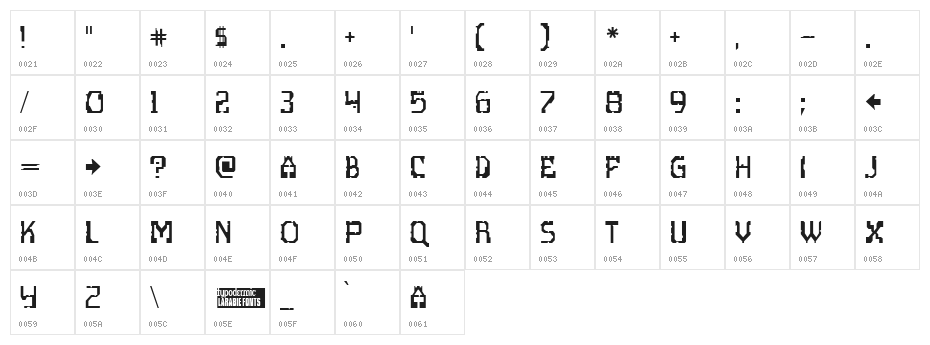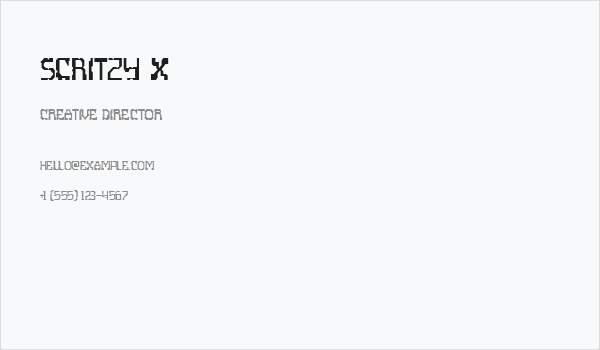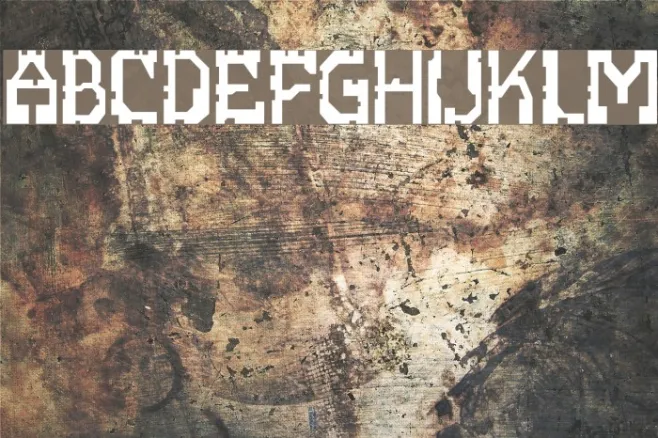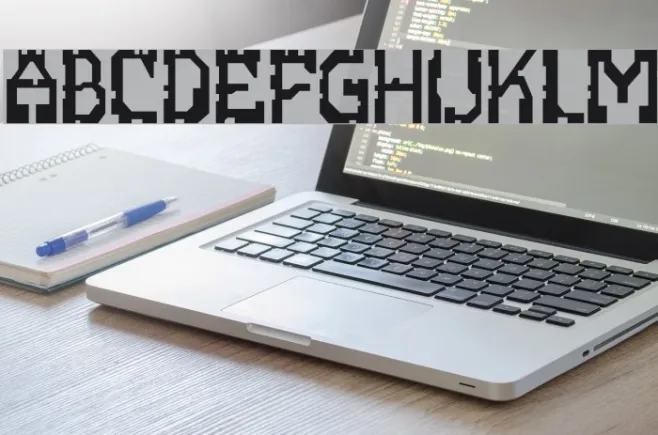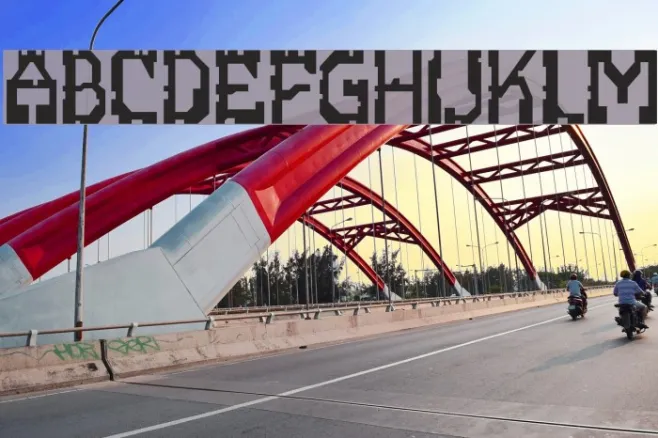
Scritzy X Font
Scritzy X Description
This font features a bold and geometric design with a distinct pixelated appearance. Each character is constructed with sharp, angular edges, giving it a digital and futuristic feel. The uniformity in stroke width across all characters contributes to its cohesive look. The uppercase and lowercase letters maintain a consistent style, while the numerals and special characters integrate seamlessly with the overall design. This font's unique structure makes it stand out, ideal for projects that require a modern and tech-inspired aesthetic.
| Proposed Projects | Ideal for video game graphics, tech-themed posters, digital art projects, and modern branding. |